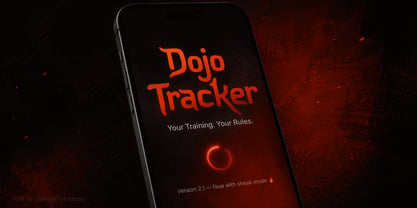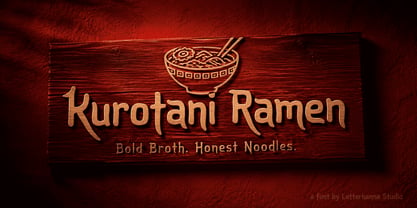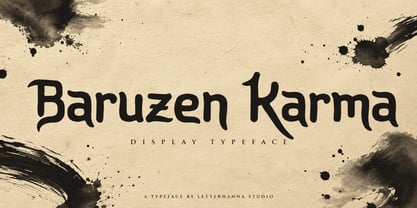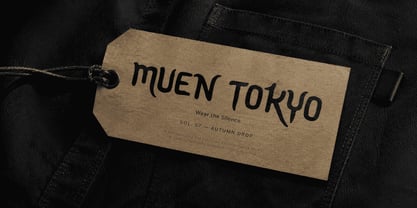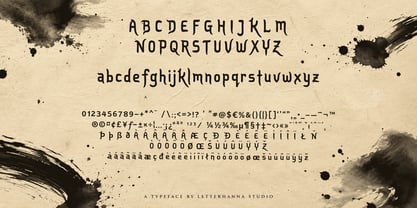
Baruzen Karma
You've been staring at your canvas for too long, cycling through the same tired fonts that say nothing. Your design deserves a voice — raw, bold, and impossible to ignore.
Introducing Baruzen Karma.
Born at the crossroads of ancient Japanese brush tradition and modern street culture, Baruzen Karma is the typeface that commands attention before a single word is read. Its thick, rounded strokes carry the weight of a calligraphy master's hand, while subtle tapering terminals whisper of ink lifted from parchment. This isn't just a font. This is a statement.
Designers know the truth: the wrong typeface kills a great concept. The right one elevates it into something people remember for years. Baruzen Karma was built for that second outcome — for logos that stop the scroll, for posters that own the wall, for brand identities that refuse to be forgotten.
Whether you're building a martial arts brand, launching a streetwear label, crafting anime-inspired merchandise, or designing a title sequence that needs to hit like a thunderclap — Baruzen Karma delivers every single time.
The name says it all. Baruzen — a fresh beginning rooted in quiet wisdom. Karma — the understanding that every design choice has consequence. Put them together and you get a font that is both intentional and electric.
This is your moment. The project you've been waiting to get right. The client who finally deserves your best work.
Baruzen Karma. Bold by nature. Fearless by design.